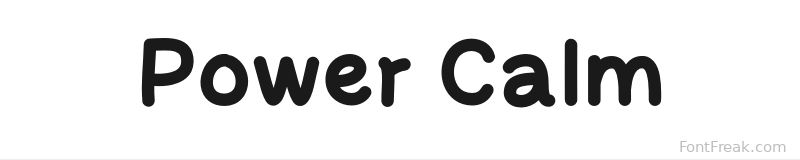
Power Calm
About Power Calm
Power Calm is a striking display font crafted by MJType, designed to balance strength and serenity in its visual appeal. This sans-serif typeface features a rounded, bold style that exudes confidence while maintaining an inviting warmth. The stroke weight is consistent, providing a smooth and easy-to-read experience, while the generous spacing between letters enhances legibility, making it suitable for both headlines and body text.
The font’s aesthetic is characterized by its soft curves and subtle geometric forms, which lend it a modern yet friendly vibe. Decorative elements are minimal, allowing the inherent power of the font to shine through without overwhelming the viewer. This makes Power Calm an ideal choice for various creative applications, including wellness brand logos, motivational posters, and corporate identity designs. Additionally, it works well for print materials such as event flyers and product packaging, where clarity and impact are essential.
Targeted towards graphic designers, small business owners, and content creators, Power Calm is versatile enough to fit a wide array of projects. Its ability to convey a sense of calm amidst the hustle and bustle of everyday life makes it particularly appealing for wellness-focused businesses and lifestyle brands.
In summary, Power Calm stands out due to its unique blend of strength and tranquility, offering a refreshing option for typographic expression. Its approachable nature encourages creativity while ensuring that messages are communicated clearly. For anyone looking to enhance their design projects with a font that embodies both power and calmness, the Power Calm font free download presents an excellent opportunity to elevate visual communication.